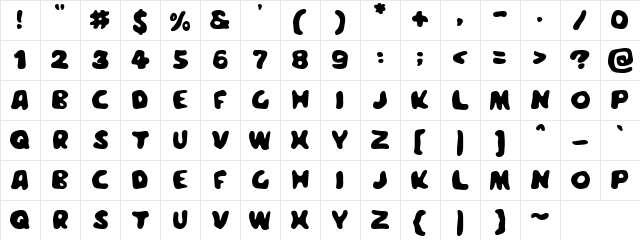
Meegoreng Regular Free Font
Meegoreng Regular
Design Context for Meegoreng
Meegoreng carries an unsettling edge - its distorted letterforms are built to unsettle, perfectly suited to horror, Halloween, and dark creative work.
Font Pairing: Pair with a clean neutral sans-serif for body copy to let Meegoreng's character lead without overwhelming the composition.
Pro Tip: Use Meegoreng at larger display sizes for maximum impact. Consider generous tracking to let the disturbing character of each letterform breathe.